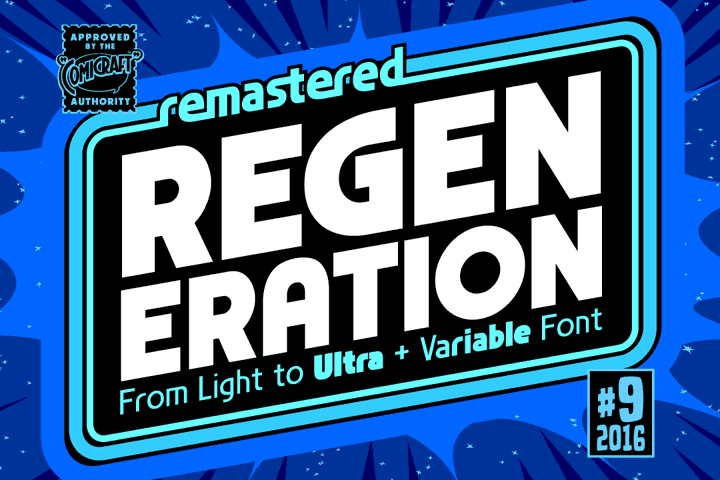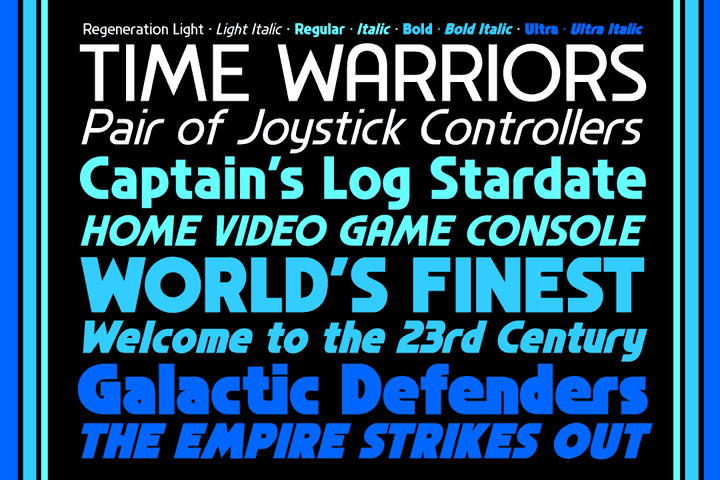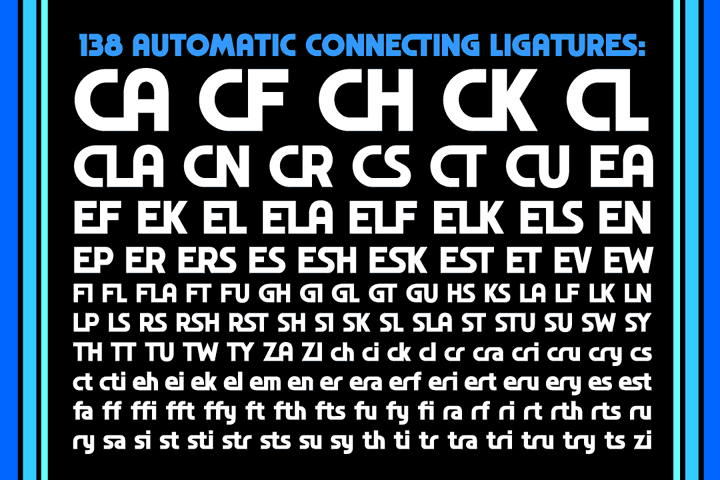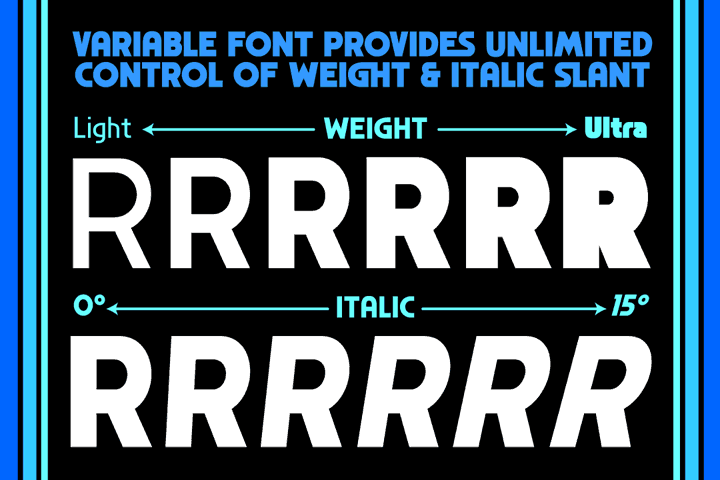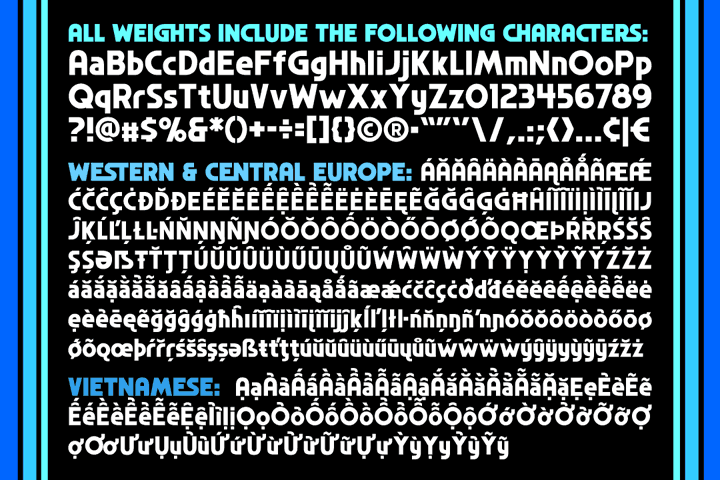
Regeneration
Regeneration font
It's the end, but the moment has been prepared for... the Time War is over and things are wearing a bit thin, time for a new face, a new body, a new companion for our Timelord font... a REGENERATION!
• Eight weights (Light, Light Italic, Regular, Italic, Bold, Bold Italic, Ultra & Ultra Italic), Variable font for precise control of weight and italic, 138 connecting ligatures, and support for Western & Central Europe and Vietnamese